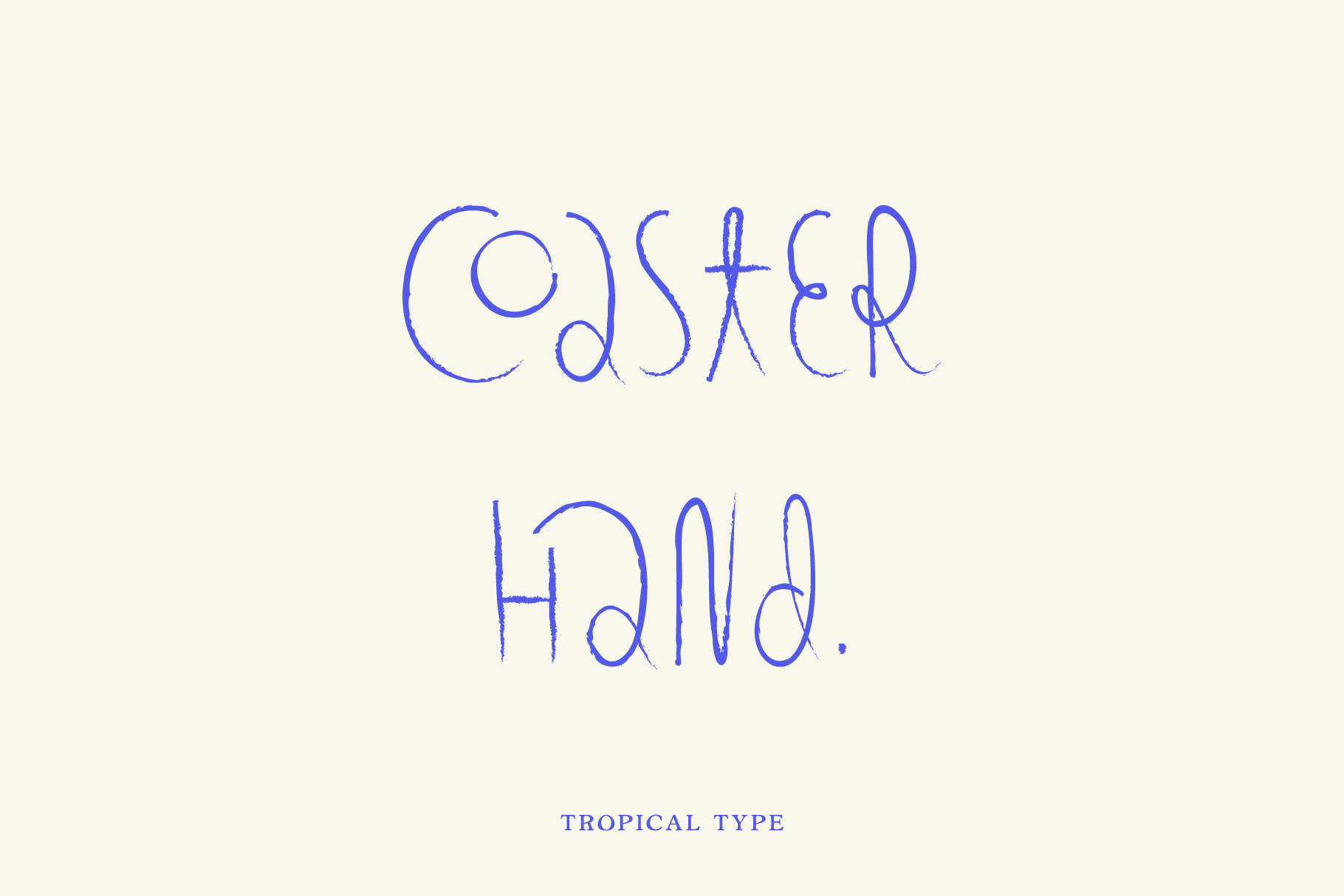
Coaster is a fun hand drawn font with lots of ligatures and alternates. Check your glyphs panel for alternate characters ! for using alternates and ligatures check out this video https://www.youtube.com/watch?v=npEE0wpWkSI
Non English glyphs included: Ą Á  À Ä Å Ã Æ Ć Ç Ę É Ê È Ë Í Î Ì Ï Ł Ń Ñ Ó Ô Ò Ö Õ Ø Œ Ś Š Ú Û Ù Ü Ý Ÿ Ź Ż